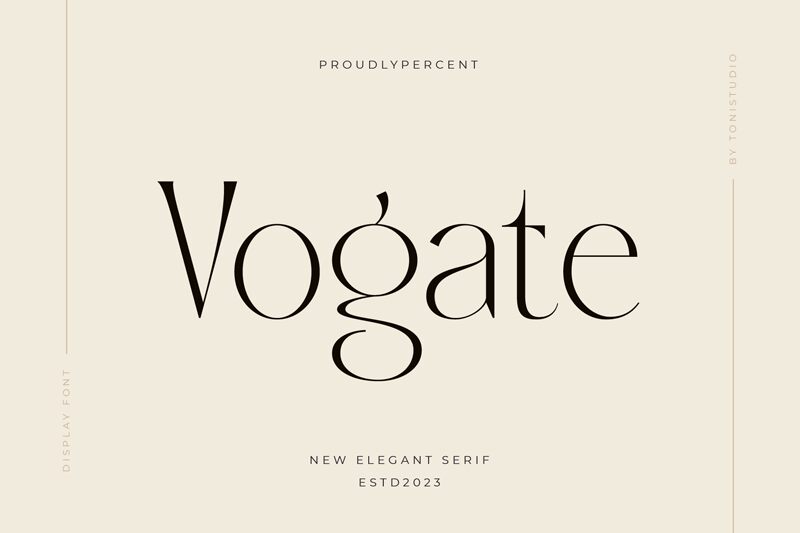
Vogate
Presenting "Vogate" - a stunning serif typeface designed by Toni Studio. With its light weight and sleek characteristics, Vogate combines contemporary sophistication with timeless elegance, making it perfect for projects that desire a sense of luxury and refinement.
Whether it's titles, posters, branding, packaging, or presentations, this font adds an exotic touch to any design. From logos to quotes, magazine titles to web layouts, advertisements to invitations - Vogate is versatile enough for almost any creative endeavor.
Its unique aesthetic is particularly well-suited for projects that demand a contemporary yet timeless appeal. Elevate your designs with the beauty of Vogate.